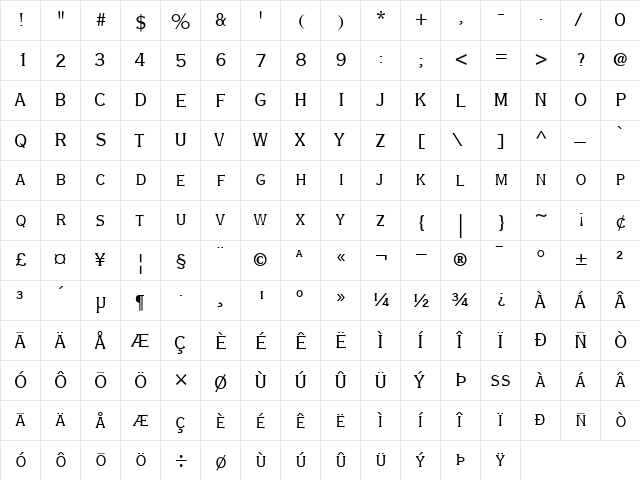
CopperplateGothicTwenty-NineBC Roman
Design Context for CopperplateGothicTwenty-NineBC Typeface
CopperplateGothicTwenty-NineBC takes a clean, functional approach — its unadorned letterforms prioritise legibility and work reliably across screen and print environments.
Font Pairing: Works well alongside a characterful serif or display font that can carry the expressive load while CopperplateGothicTwenty-NineBC handles the functional copy.
Pro Tip: Use CopperplateGothicTwenty-NineBC for UI labels, navigation, and short-form body copy where clean legibility is the priority.